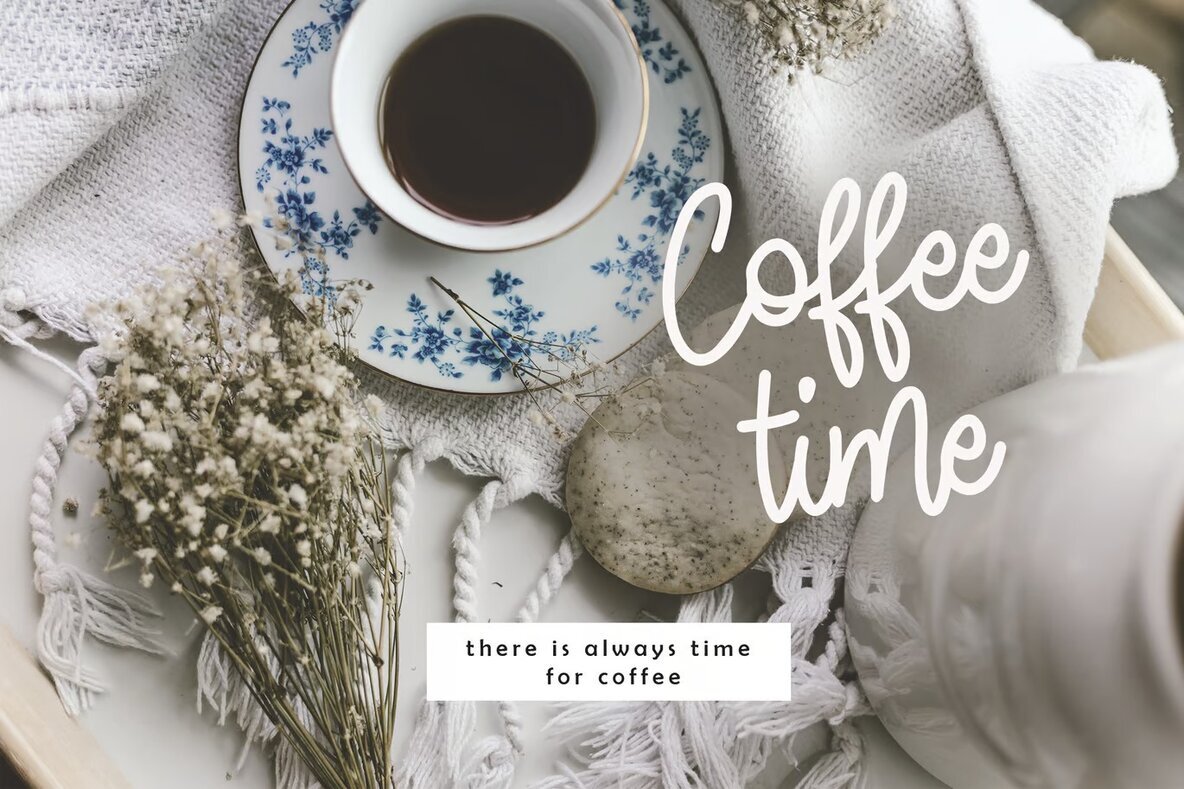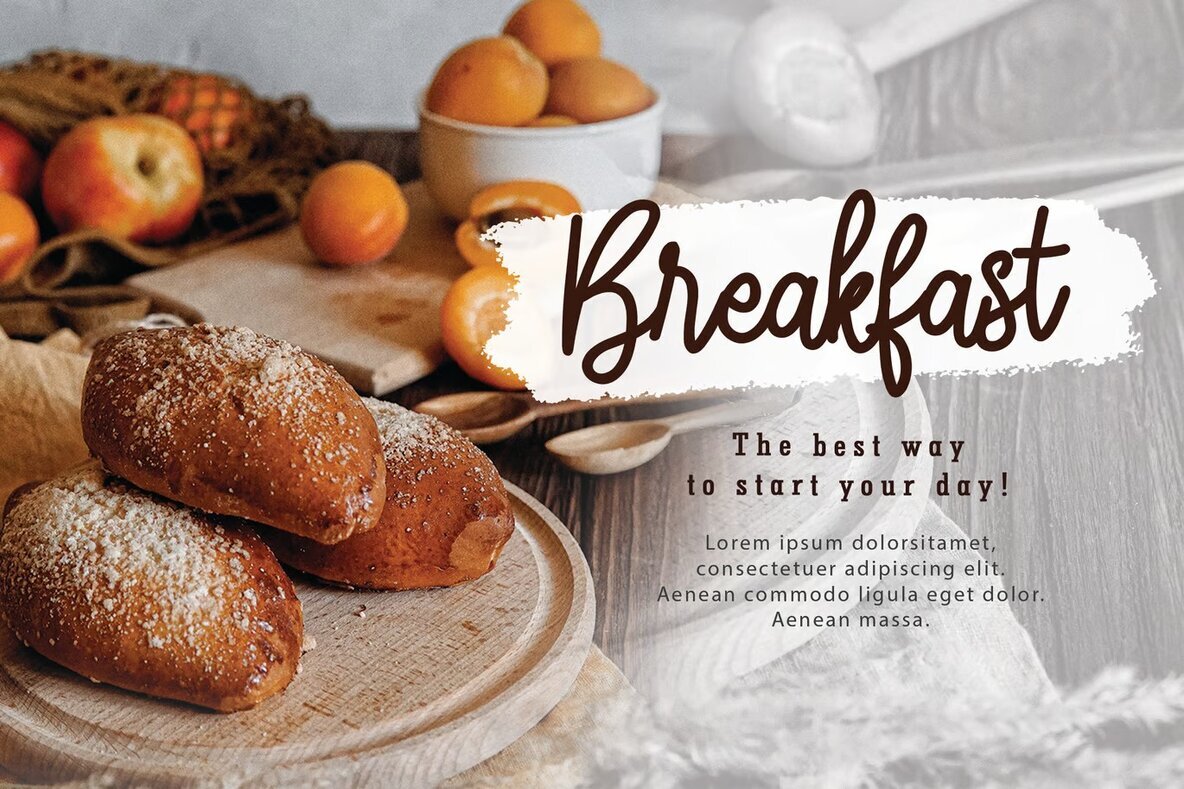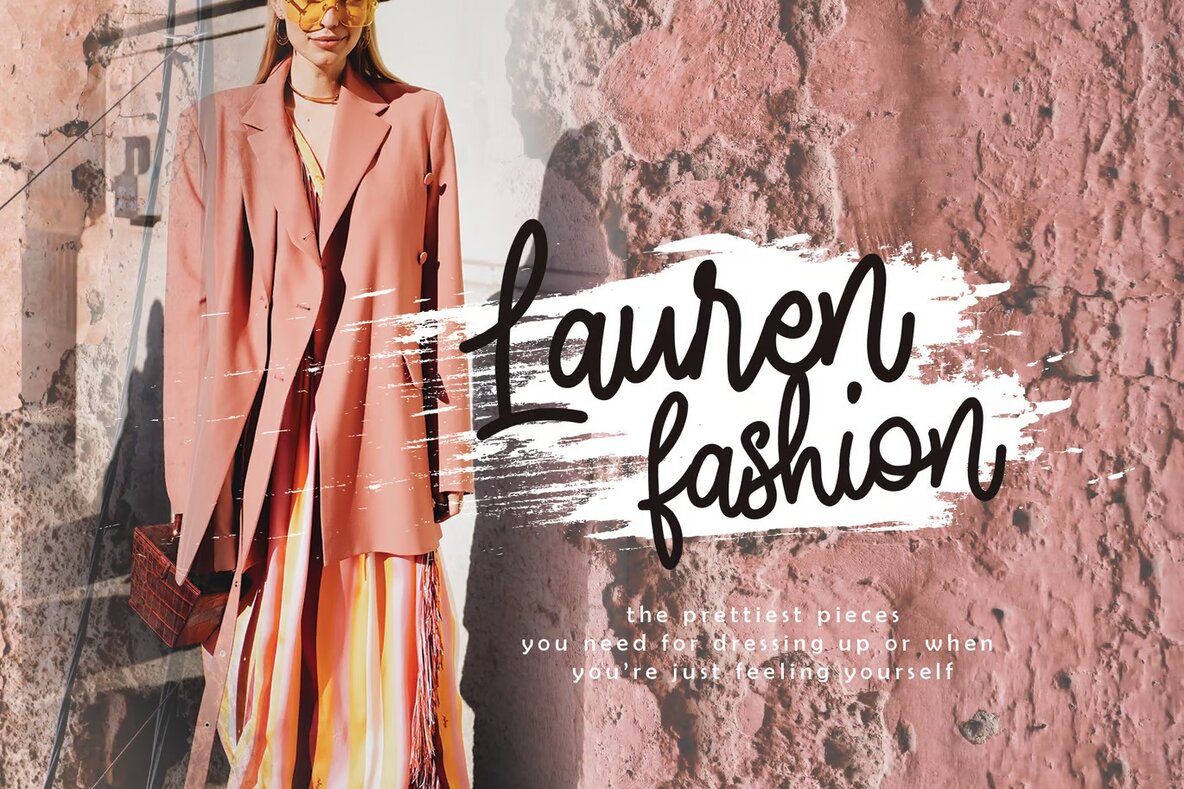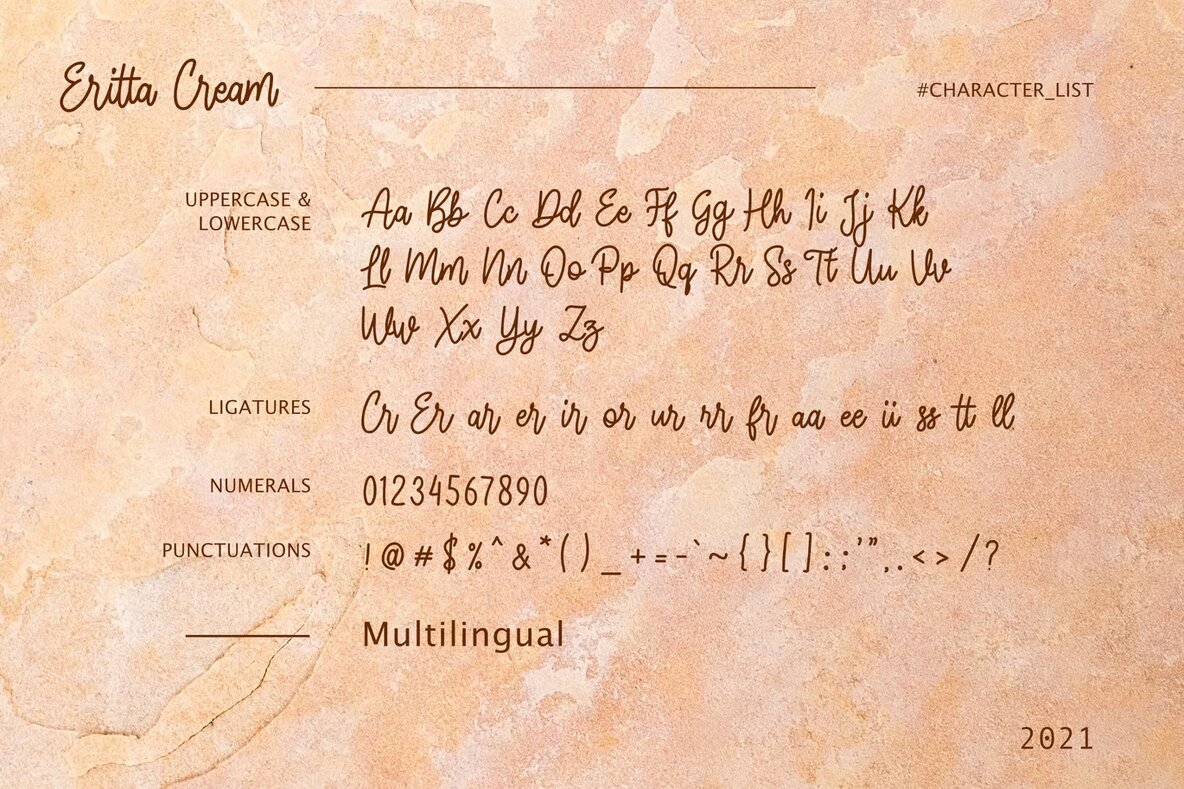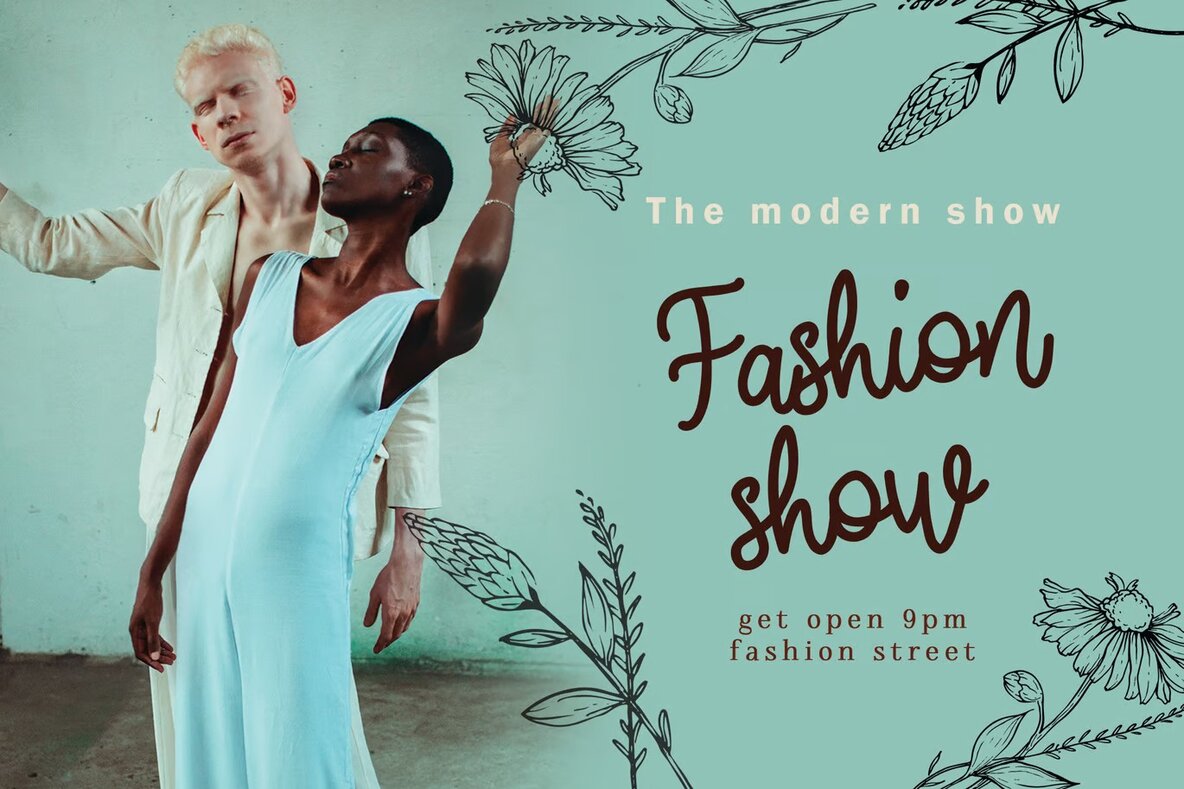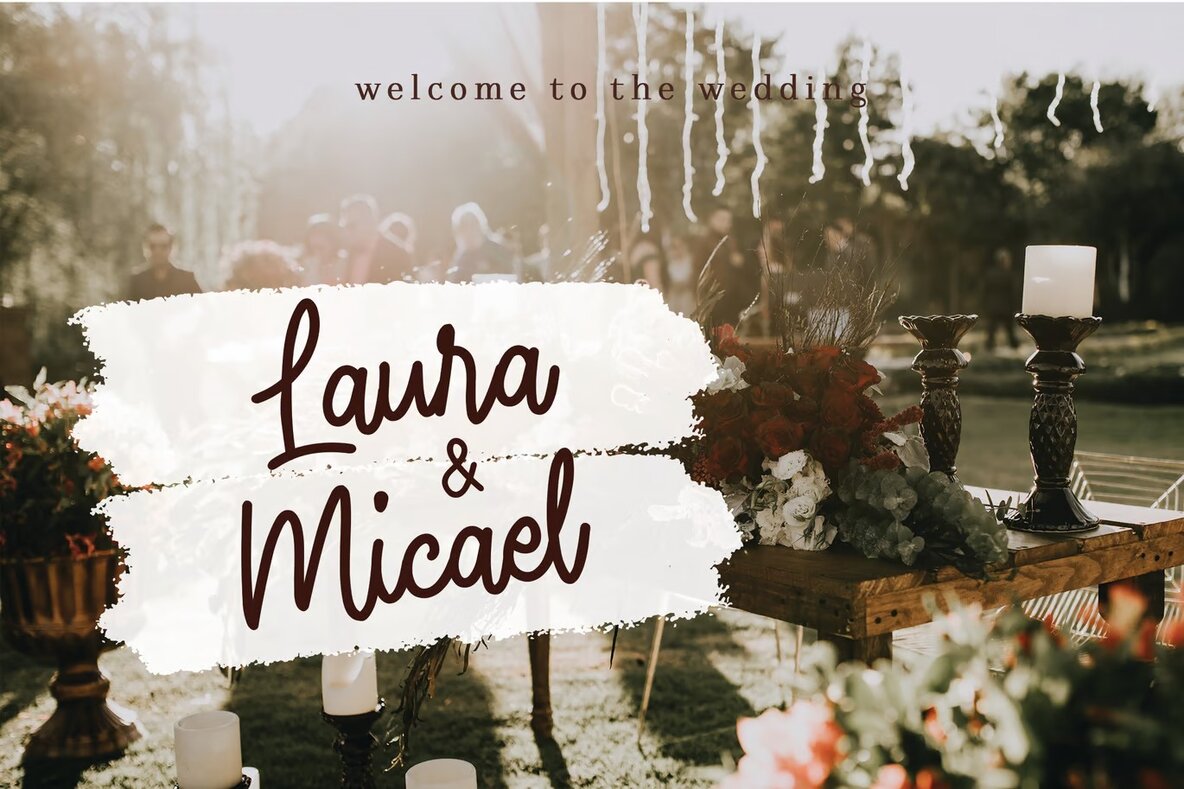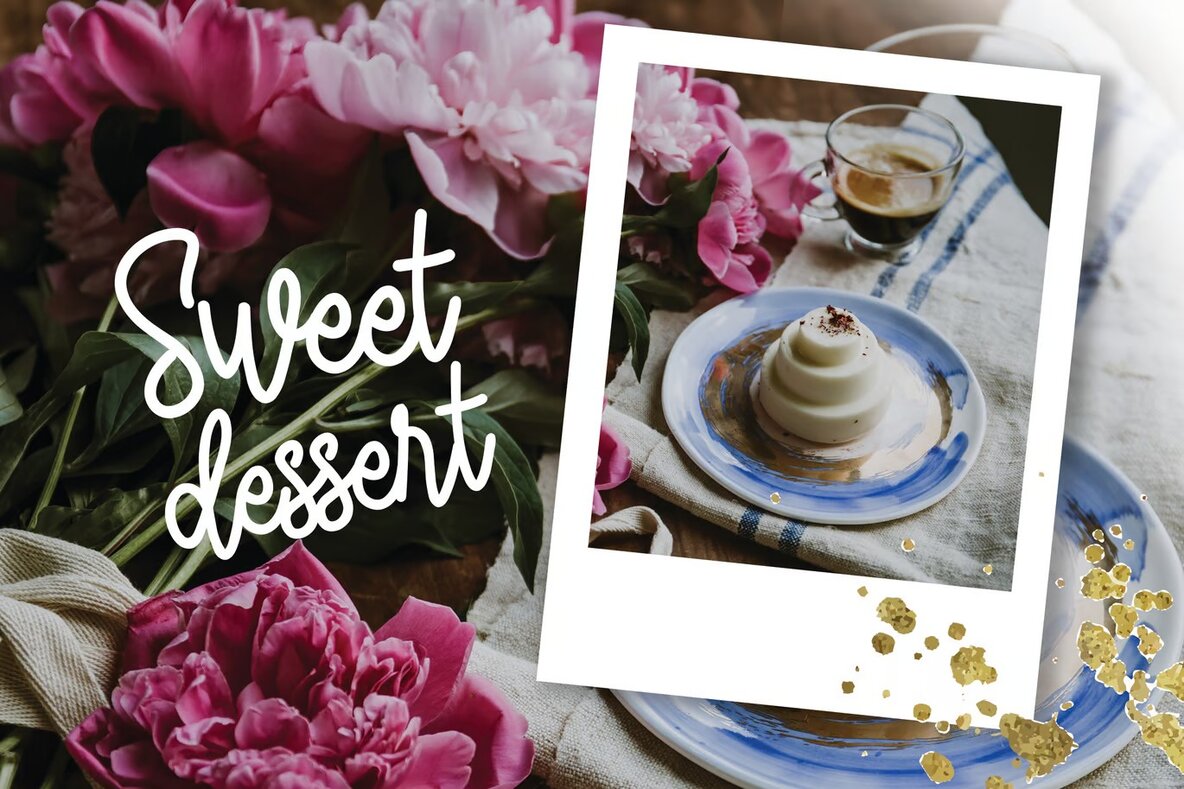
Eritta Cream Font
Eritta Cream Regular
Eritta Cream is a sophisticated monoline signature font that exudes elegance and charm. Its smooth, handwritten style makes it an ideal choice for a variety of design projects. From weddings to social media, this font enhances feminine branding, greeting cards, modern invitations, and photography branding. Eritta Cream is perfect for stationery and blog designs, as well as modern advertisements and art quotes. Its versatility makes it suitable for special events such as birthdays, and it can be beautifully incorporated into home décor, book covers, or personalized items like custom mugs and pillows.
The unique flow of Eritta Cream stands out, providing an eye-catching yet subtle touch to any project. Its handwritten style adds a personal touch, making it an excellent option for designs that require a custom and elegant font. Whether you're designing t-shirts or planning a wedding, Eritta Cream fulfills any signature font needs with its beauty and simplicity. This font is perfect for adding a polished, modern look to your creative endeavors.